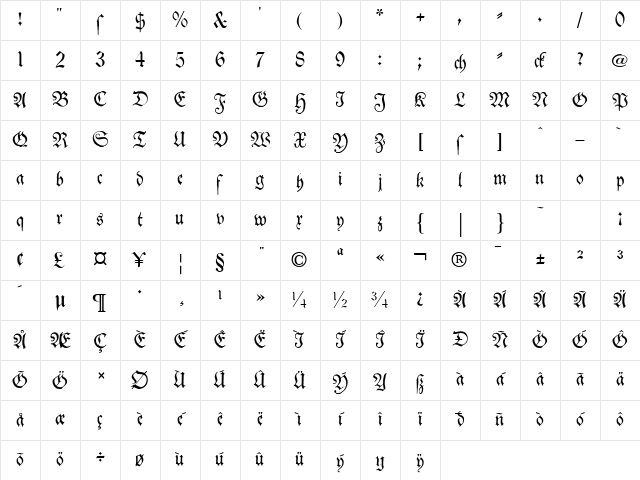
Complete Theuerdank Fraktur Regular glyph index. Displaying only characters natively supported by Theuerdank Fraktur Regular font.
Theuerdank Fraktur draws on the rich tradition of blackletter calligraphy, with dense, angular strokes that evoke medieval manuscripts and old-world craftsmanship.